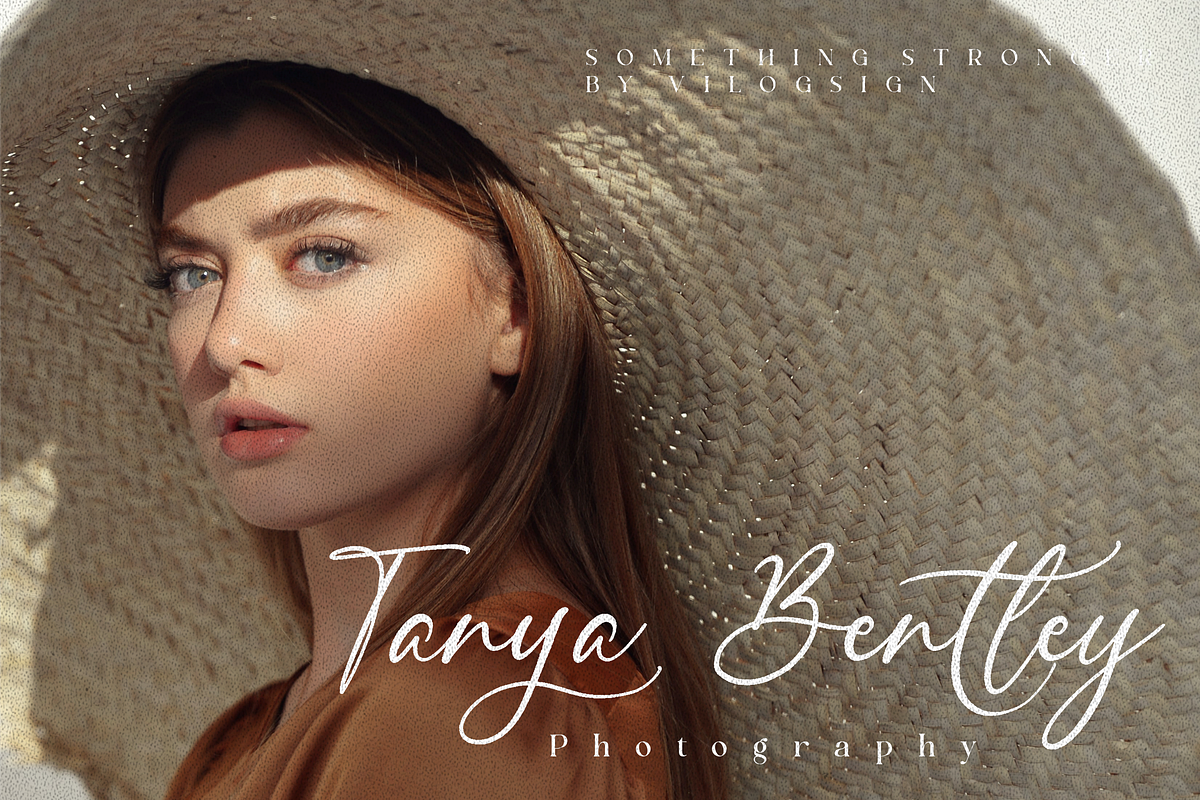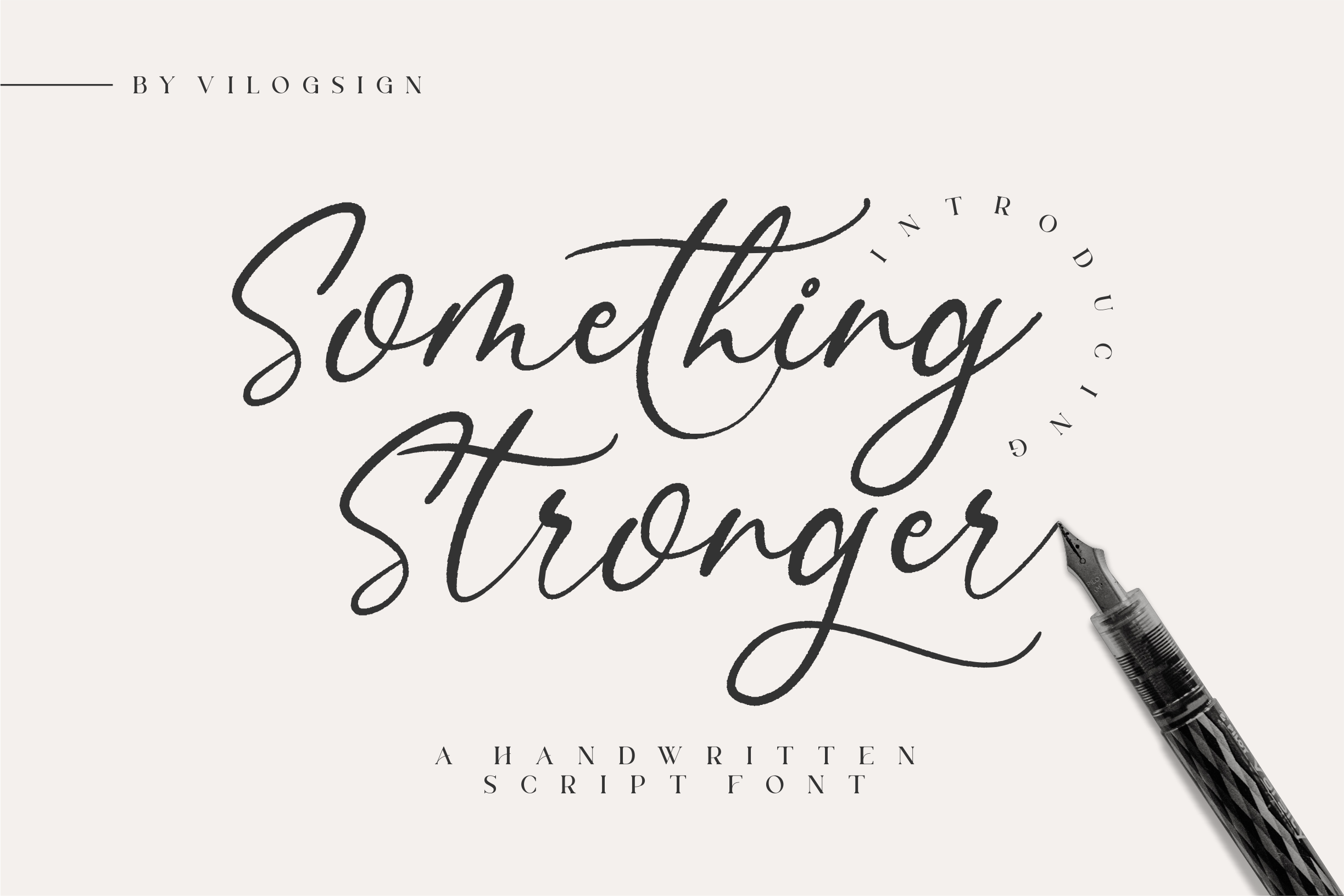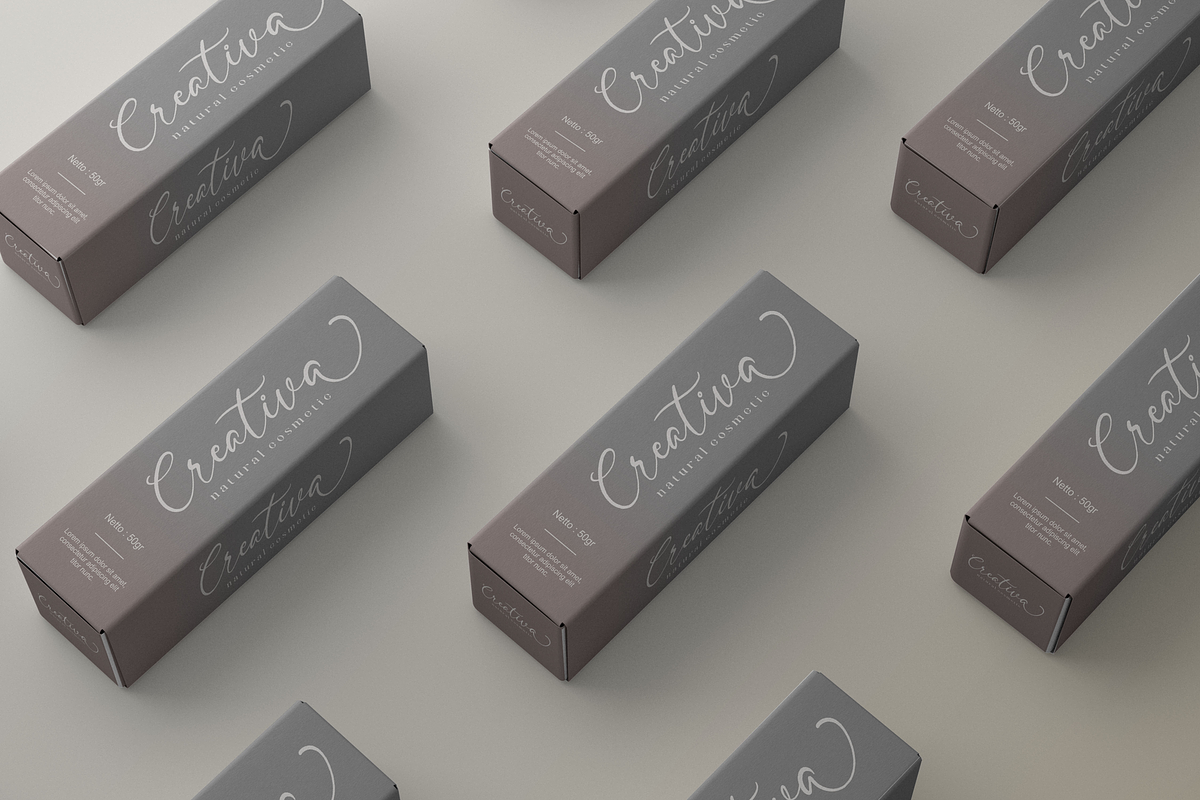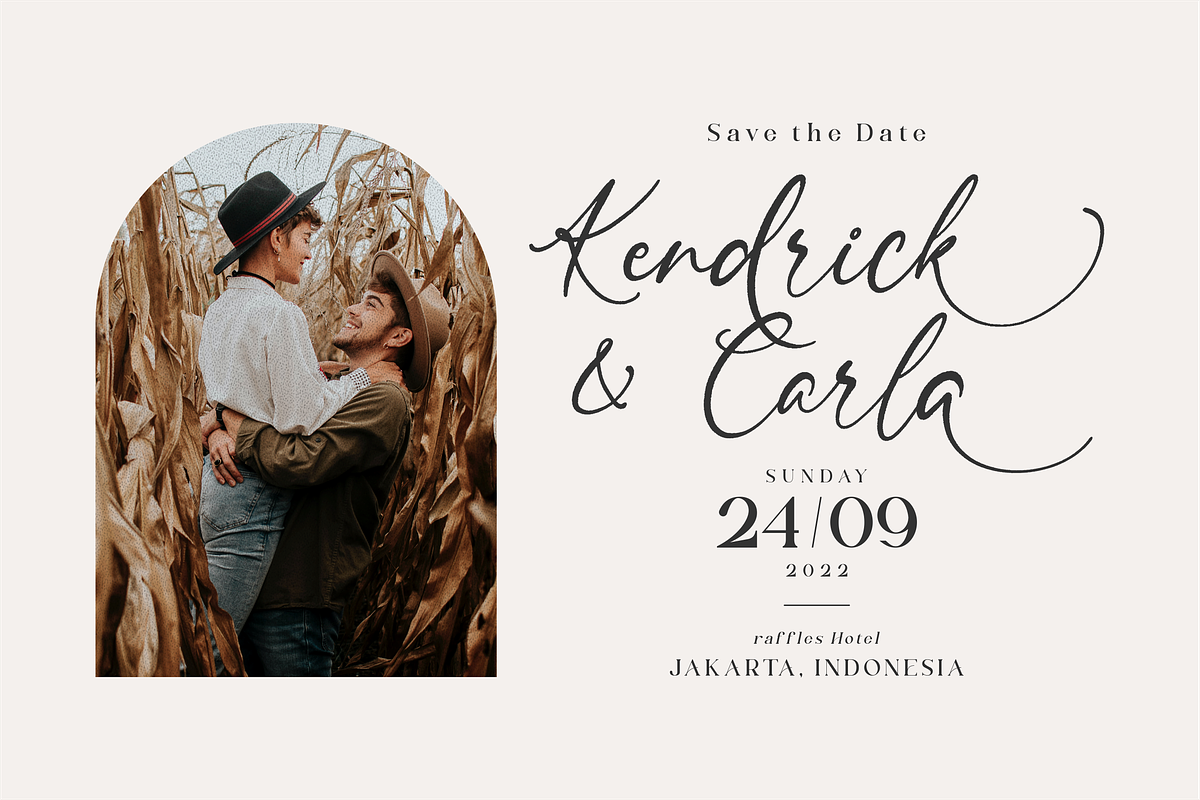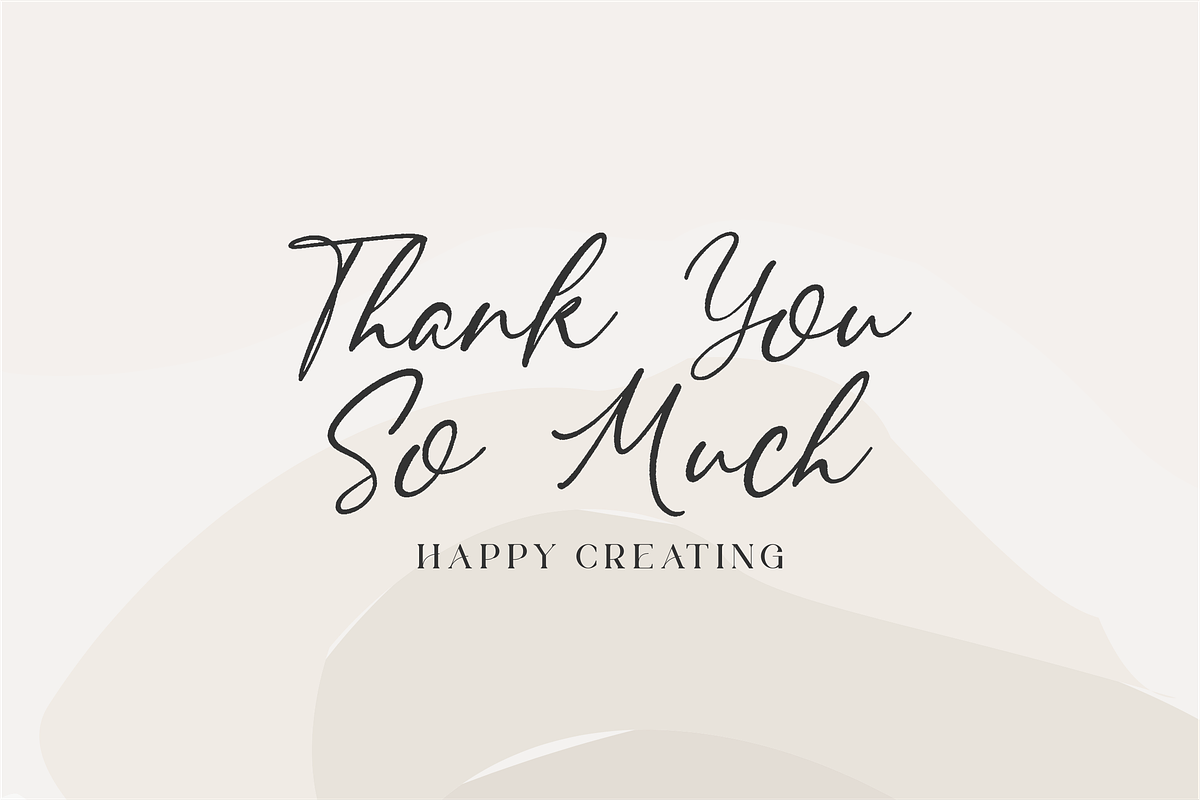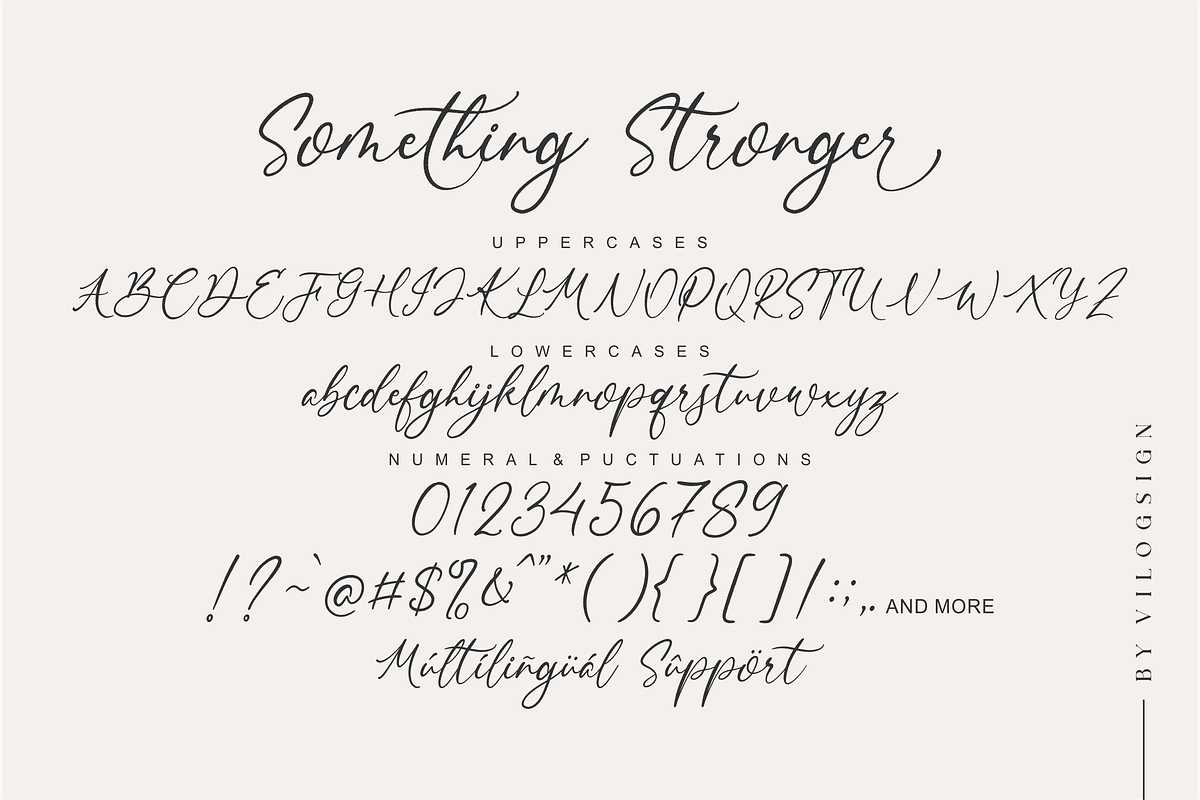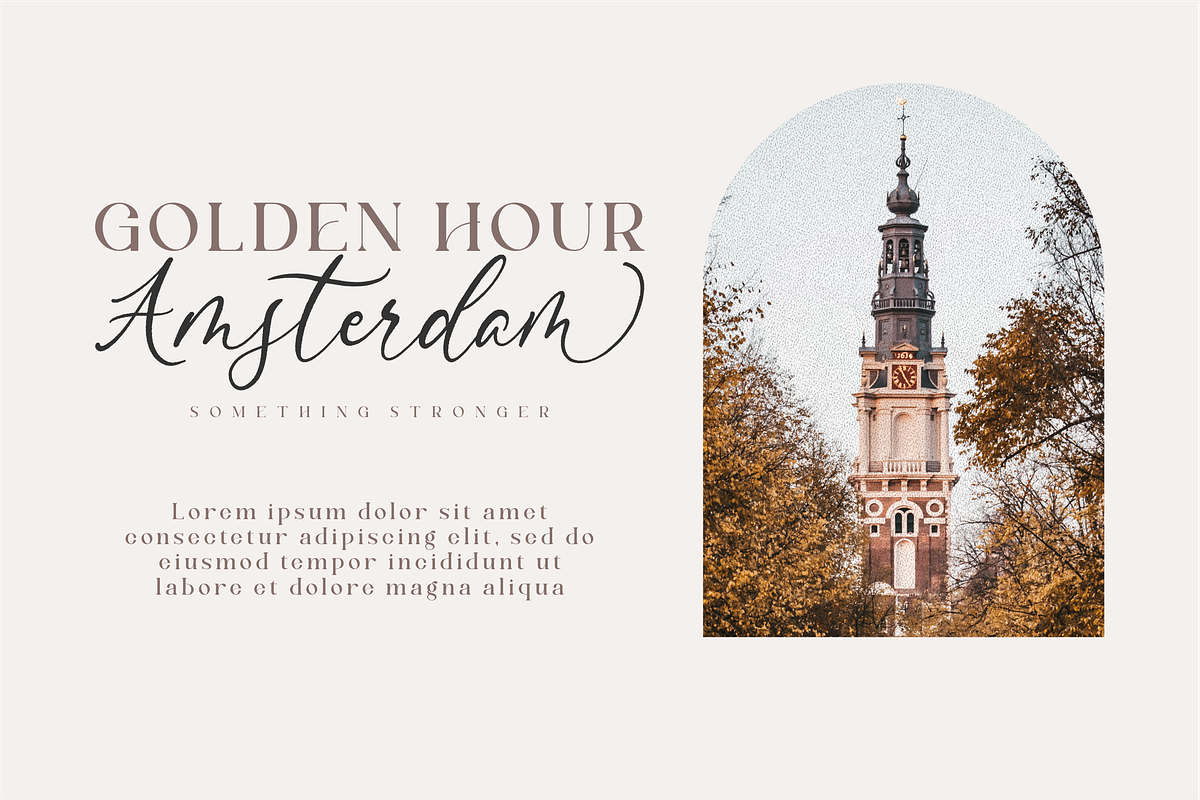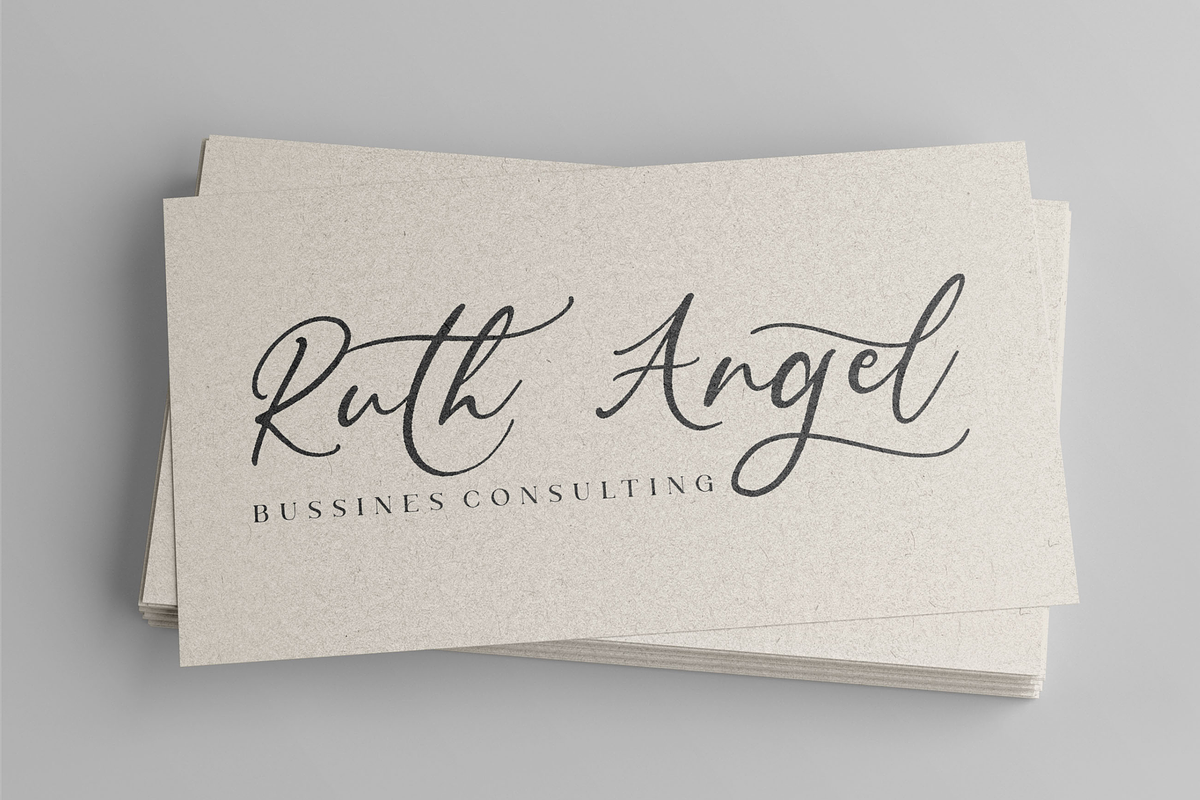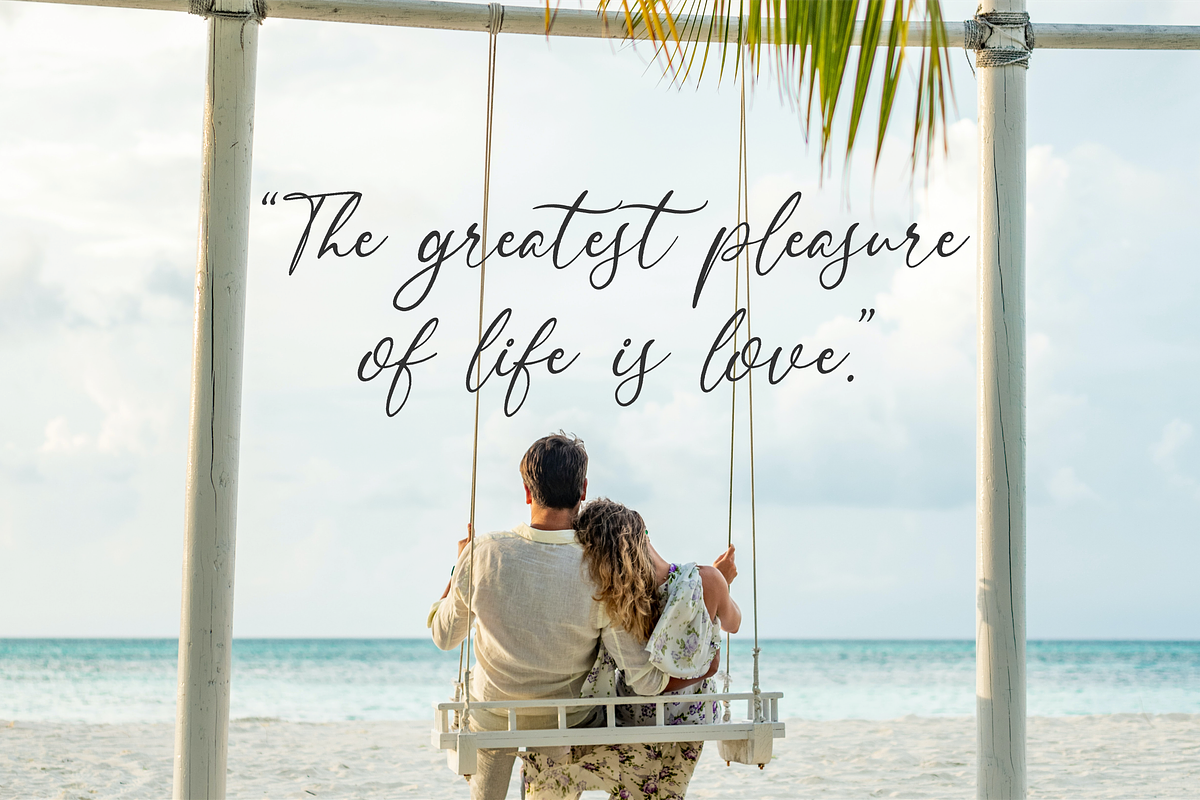
Something Stronger Handwritten Font
Hi,,, Introducing "Something Stronger" a Beautiful texture Script Font!!!
Something Stronger font is a script with a touch of texture look and feel. This type of font perfectly made to be applied especially in Branding, and the other various formal forms such as invitations, labels, logos, magazines, books, greeting / wedding cards, packaging, fashion, make up, stationery, novels, labels or any type of advertising purpose. This font is very amazing with multilingual support to complete your need.